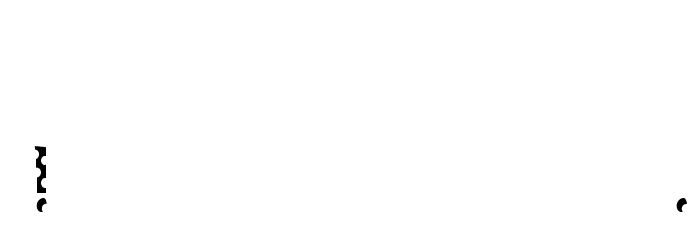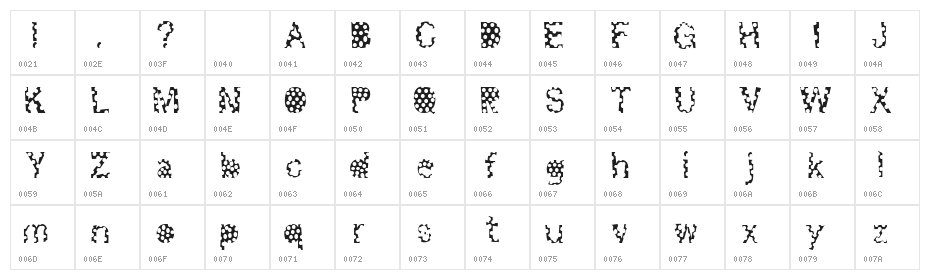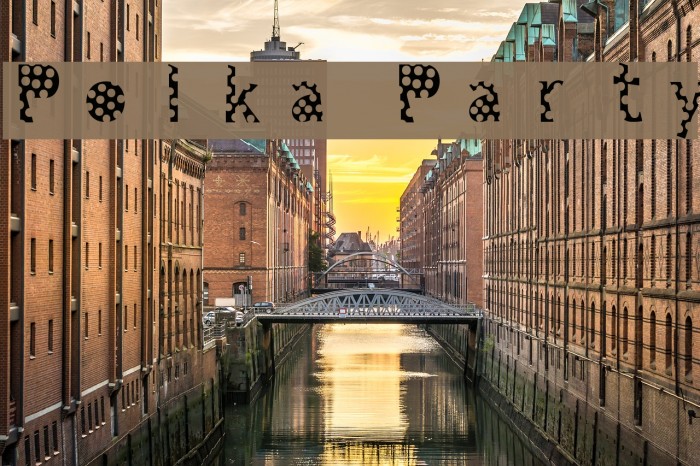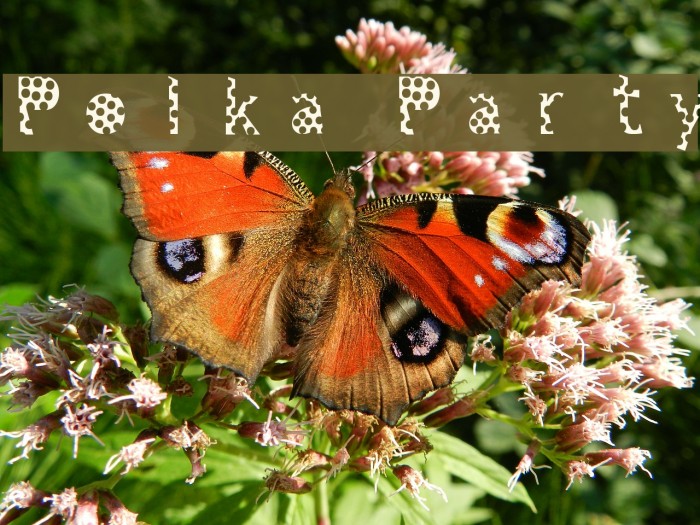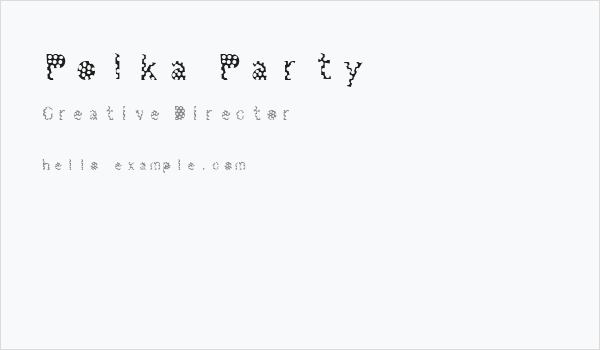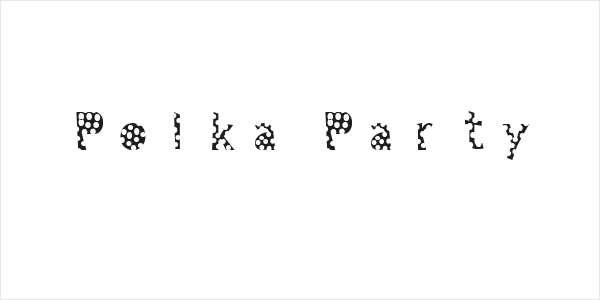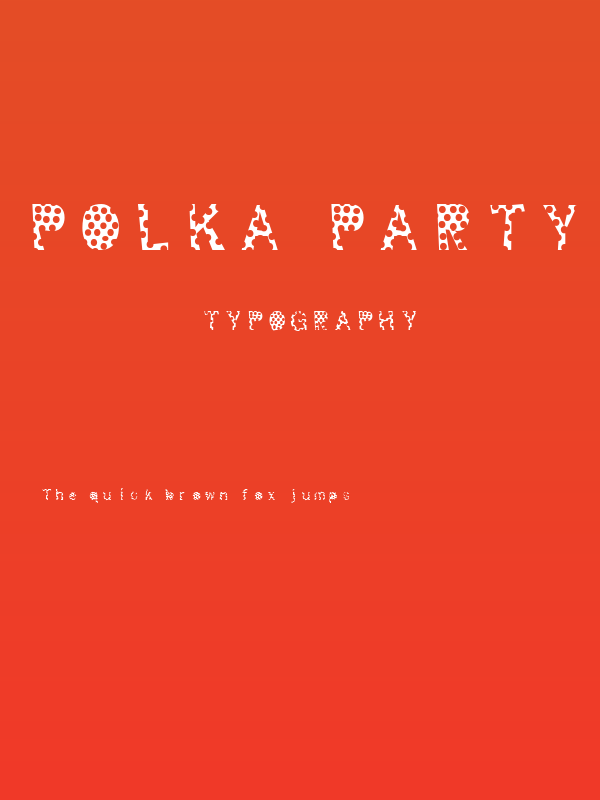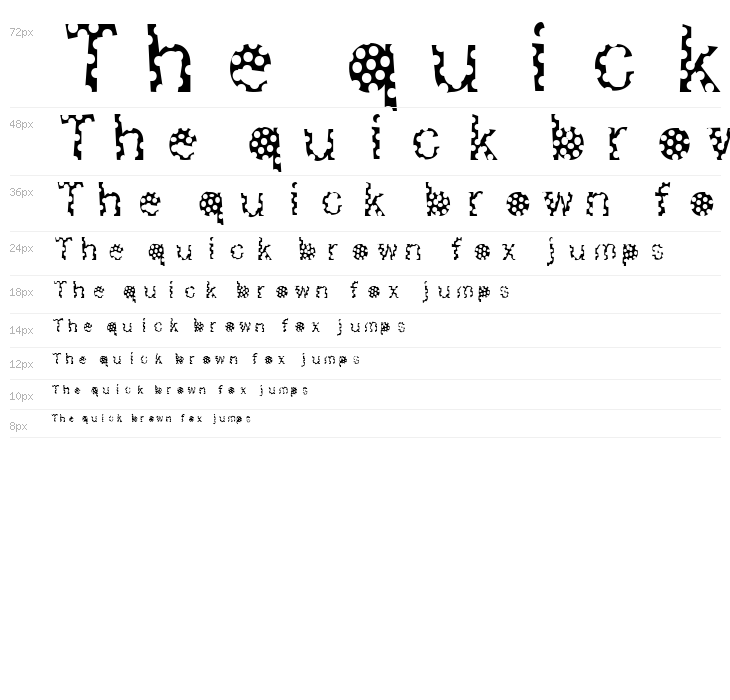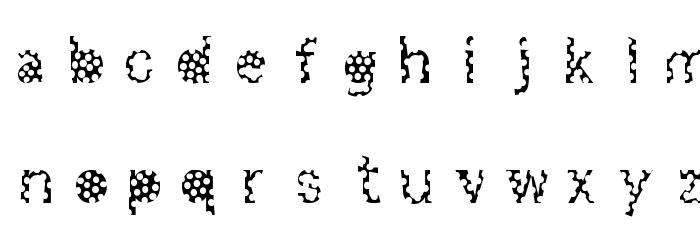
Polka Party Font
Polka Party Description
This playful and decorative font features a unique polka dot pattern within each character, creating a lively and whimsical appearance. The uppercase and lowercase letters maintain a consistent style, with the polka dots adding a textured effect that makes the font stand out. The numbers and special characters are designed with the same playful pattern, ensuring a cohesive look across all elements. This font is perfect for projects that require a fun and engaging aesthetic, such as children's books, party invitations, or playful branding materials.
POLKA-PARTY UPPERCASE
POLKA-PARTY LOWERCASE
POLKA-PARTY OTHER CHARS
| Proposed Projects | Children's books, party invitations, playful branding, greeting cards, and event posters. |